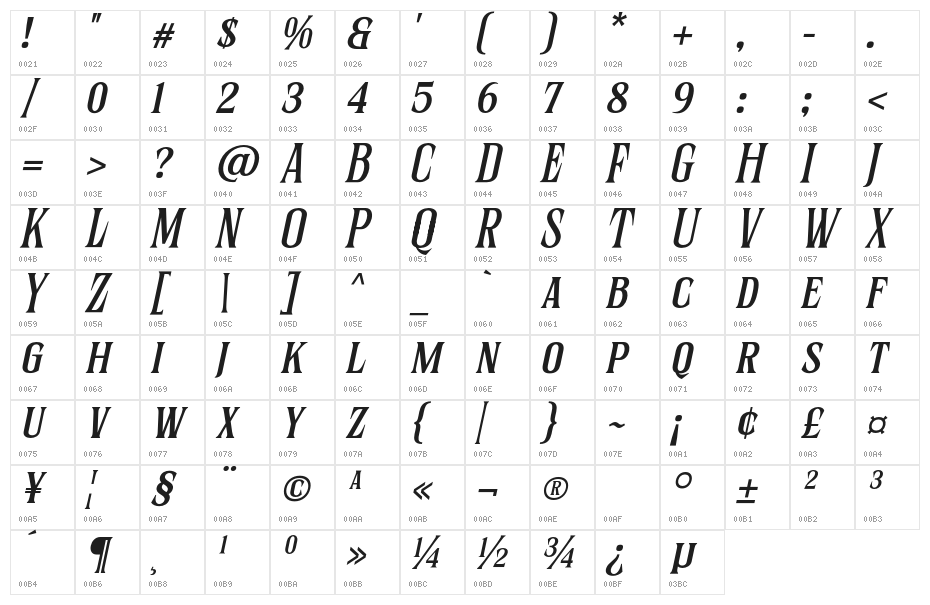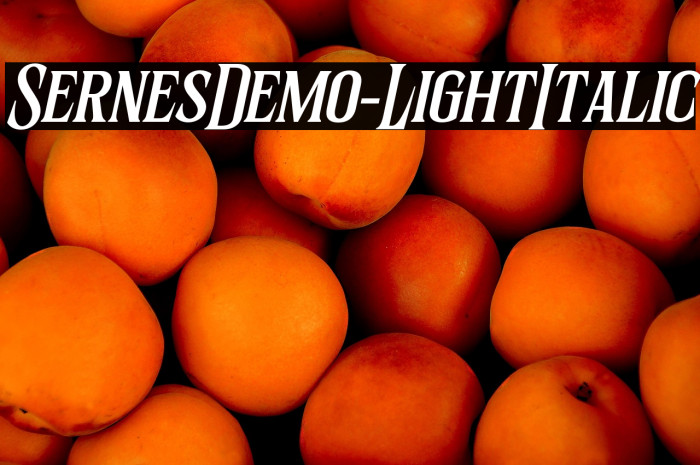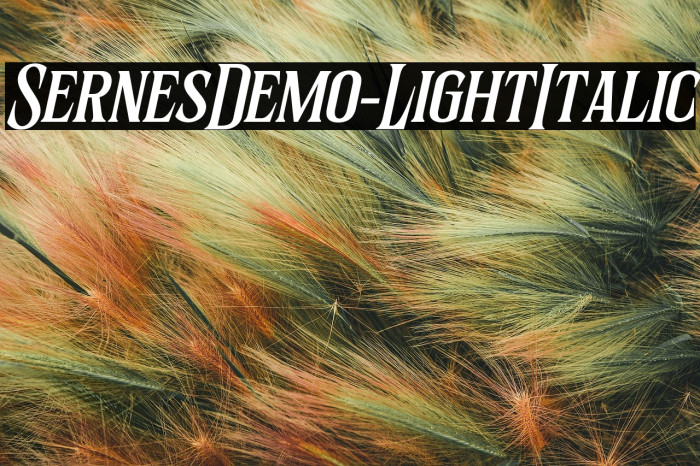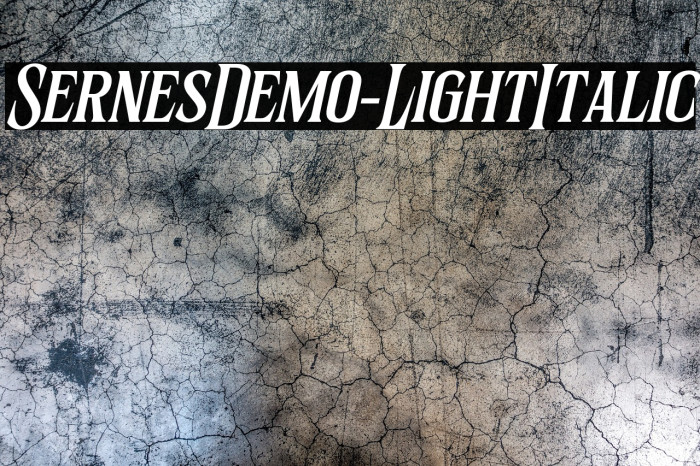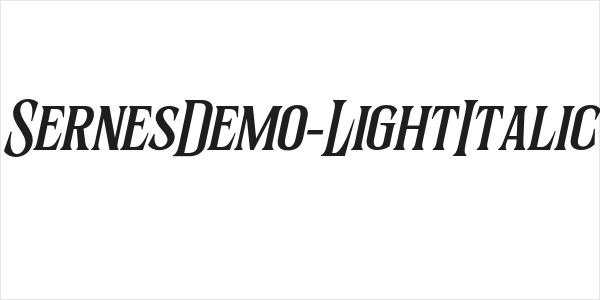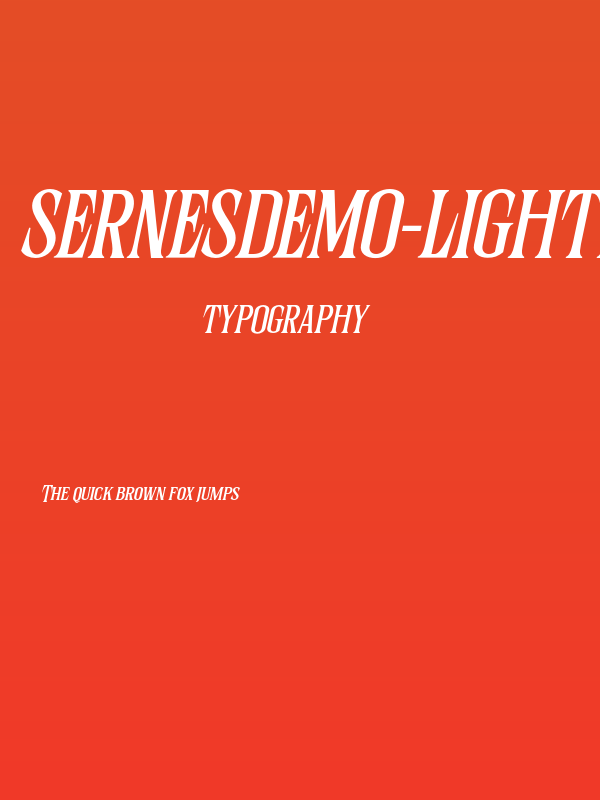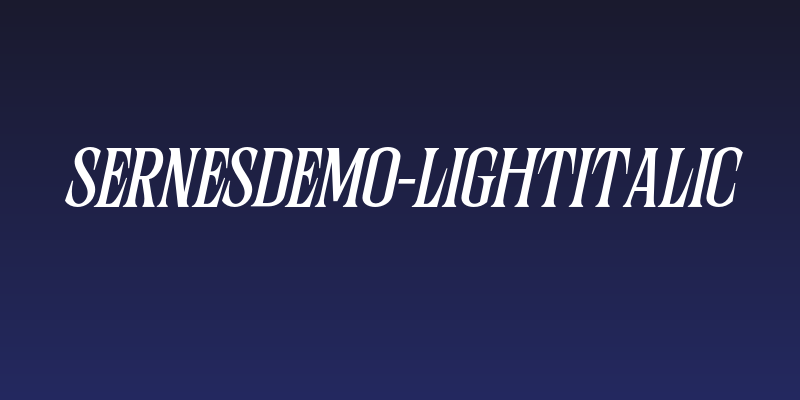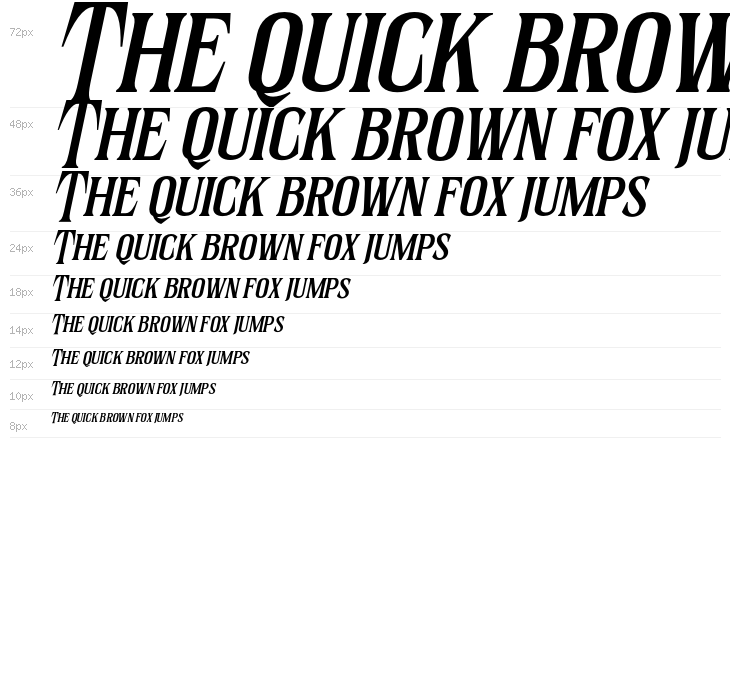
SernesDemo-LightItalic Font
SernesDemo-LightItalic Description
This font features a sleek, elegant design with a distinct italic slant, giving it a dynamic and sophisticated appearance. The characters are crafted with a high contrast between thick and thin strokes, enhancing readability while maintaining a stylish flair. The uppercase letters exhibit a classic serif style, with sharp, pointed serifs that add a touch of formality. The lowercase letters mirror this elegance, with smooth curves and a consistent flow. The numerals are well-proportioned and align perfectly with the overall aesthetic, making them suitable for both formal and creative applications. Special characters are included, each designed with the same attention to detail, ensuring consistency across all text elements.
| Use Case | Headlines, Logos, Editorial design |
| Proposed Projects | Ideal for luxury branding, editorial design, wedding invitations, and high-end product packaging. |